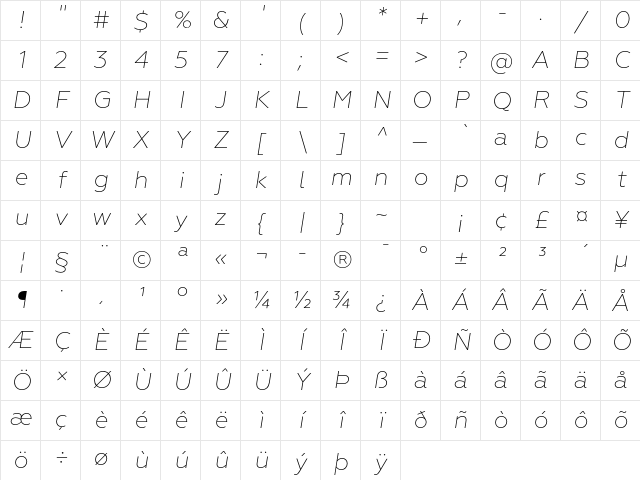
Complete Geoform ExtraLight Italic glyph index. Displaying only characters natively supported by Geoform ExtraLight Italic font.
Geoform is a composed and adaptable typeface that performs quietly and consistently across a wide range of design contexts. The slanted form adds forward momentum and visual energy. Its slender proportions lend an understated elegance to any composition.
Pro Tip: Use Geoform for emphasis, pull quotes, and subheadings where its slanted energy can add rhythm to the layout.
Who designed the Geoform ExtraLight Italic font?